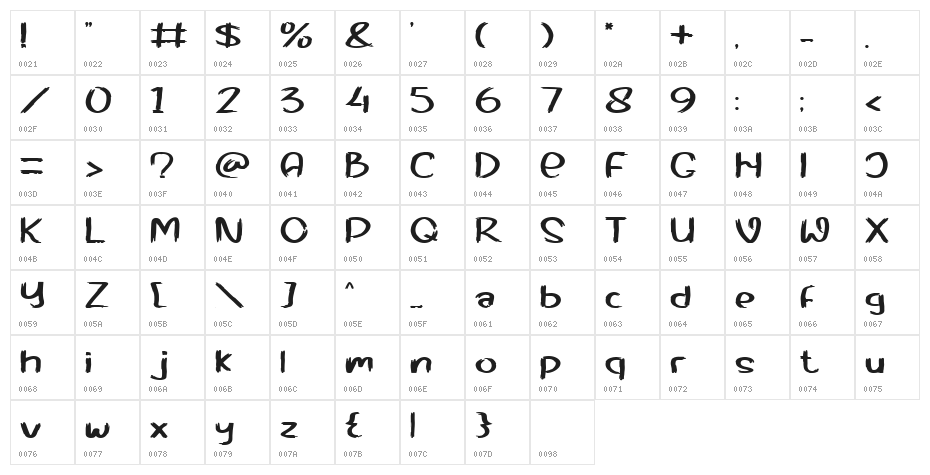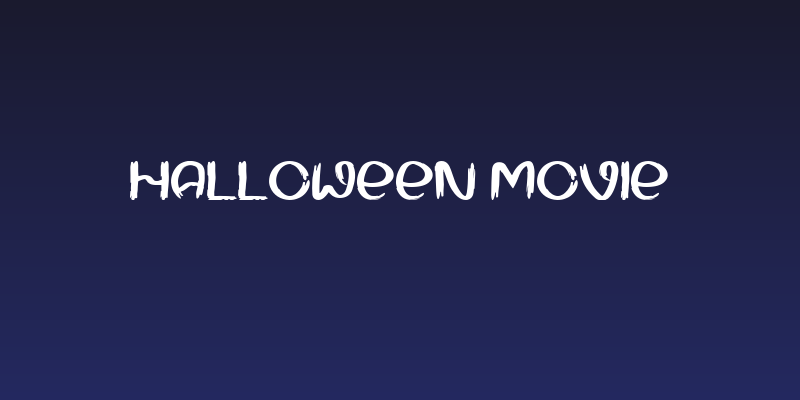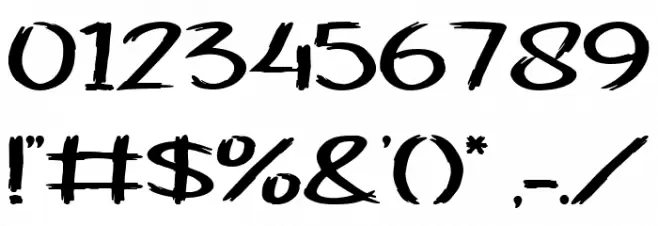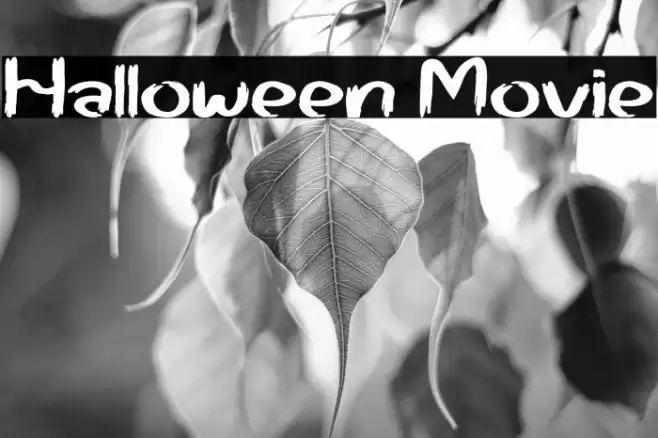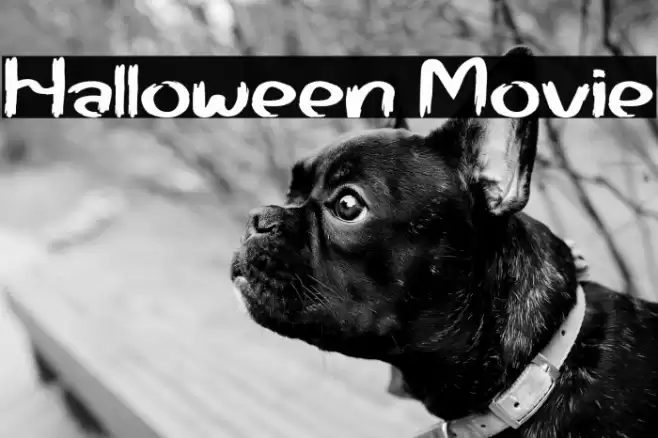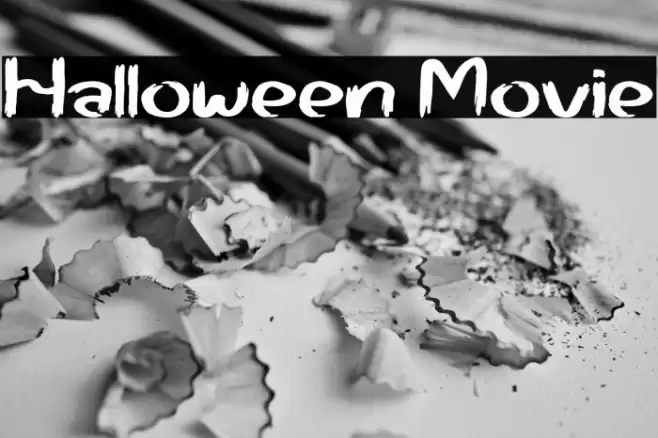
Halloween Movie Font
This font features a bold and expressive style with a brush-like texture that gives it a hand-painted appearance. The strokes are uneven and dynamic, adding a sense of movement and energy. The characters are slightly condensed, with varying stroke widths that create a medium contrast. This design evokes a sense of creativity and spontaneity, making it ideal for projects that require a bold and artistic touch. The font includes a full set of uppercase and lowercase letters, numerals, and a variety of special characters, ensuring versatility in its application.
| Proposed Projects | Ideal for Halloween-themed designs, posters, logos, and creative branding projects. |